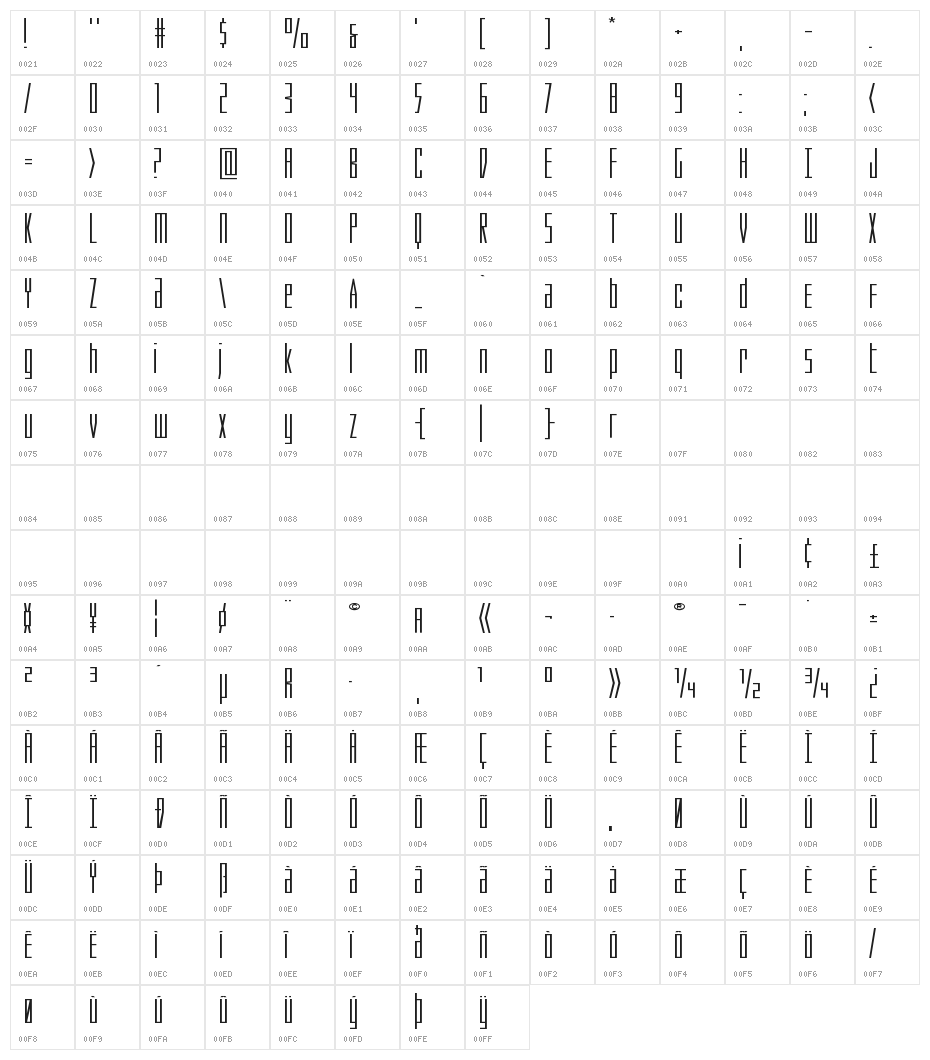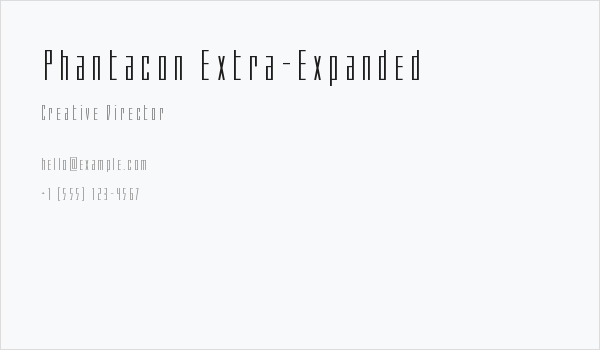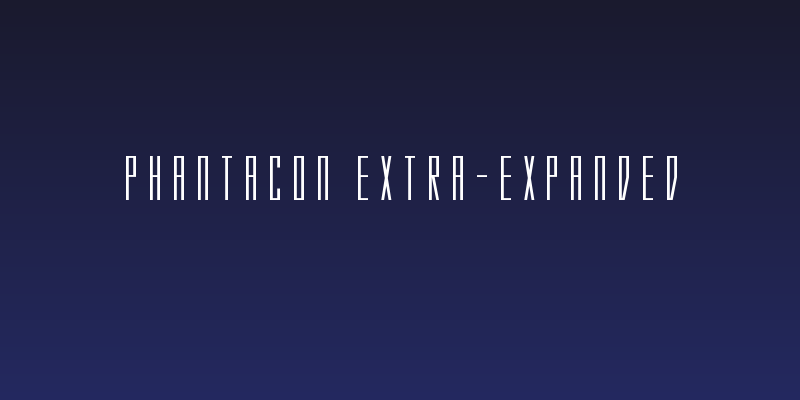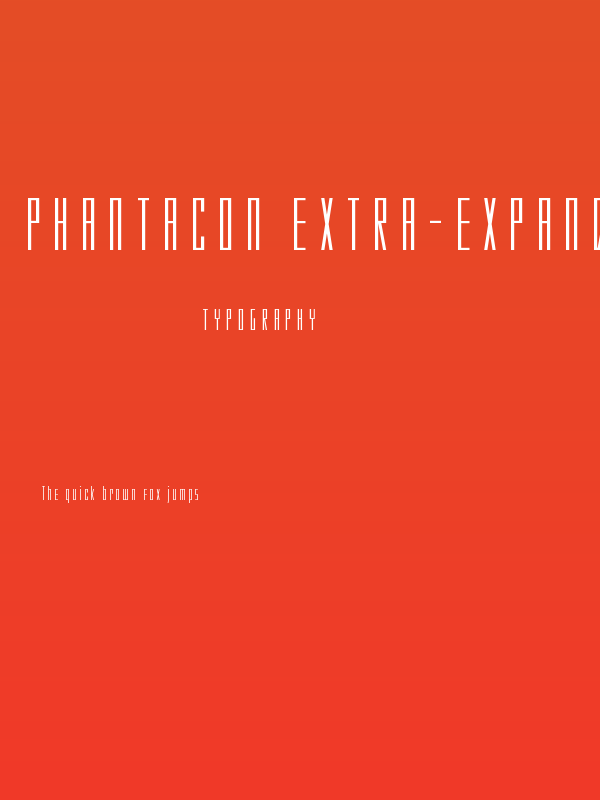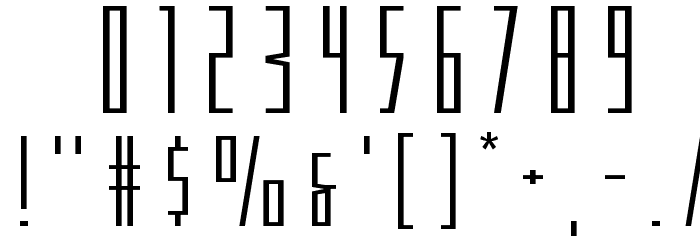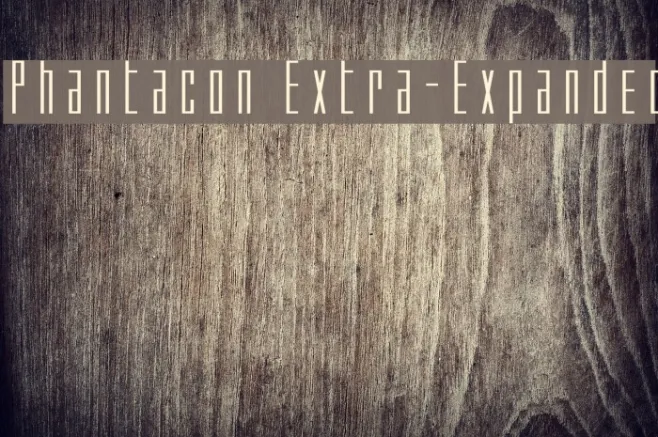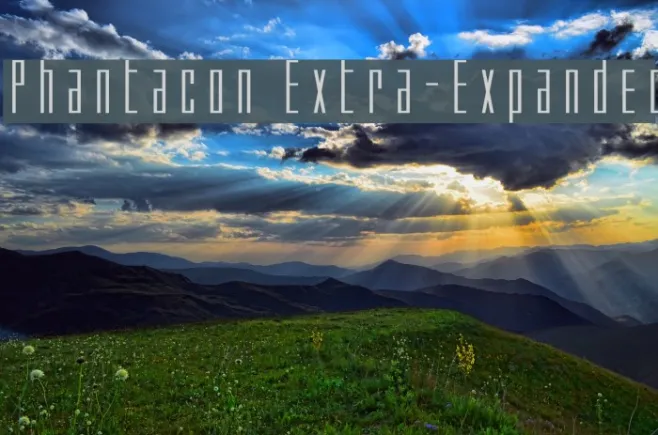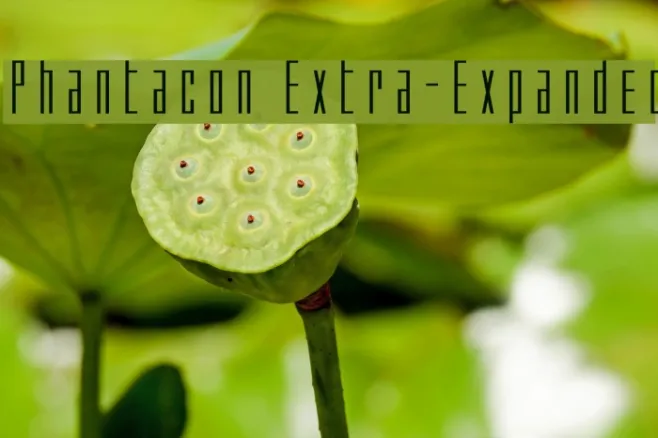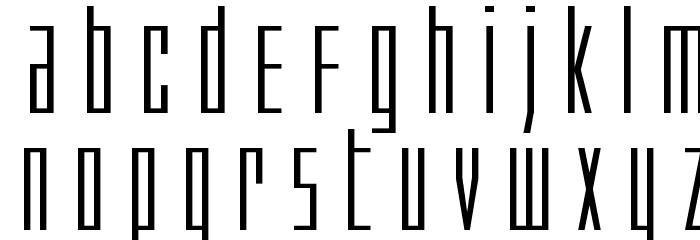
Phantacon Extra-Expanded Font
Phantacon Extra-Expanded Description
This font features a distinctively tall and narrow design with a futuristic and geometric aesthetic. The characters are elongated with sharp angles and clean lines, giving it a modern and technical appearance. The uppercase and lowercase letters maintain a consistent height, contributing to its uniform look. Numbers and special characters follow the same stylistic approach, ensuring cohesion across all glyphs. The font's expanded width allows for greater readability despite its condensed form, making it suitable for various design applications.
| Proposed Projects | Ideal for technology branding, sci-fi posters, modern web design, and innovative product packaging. |